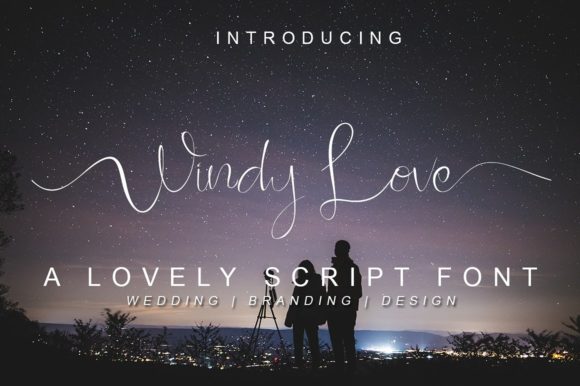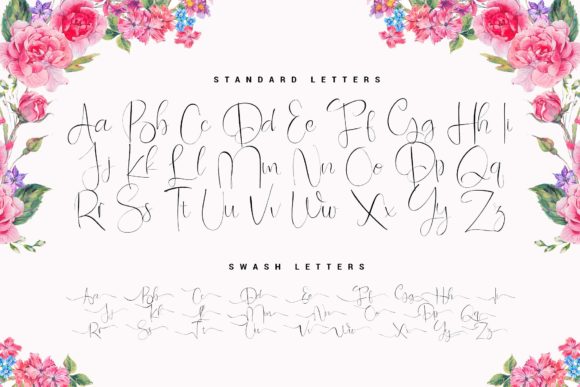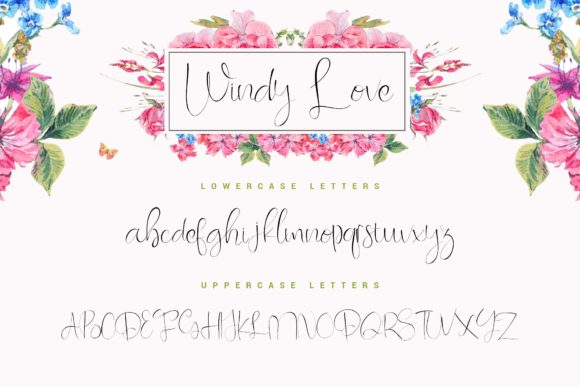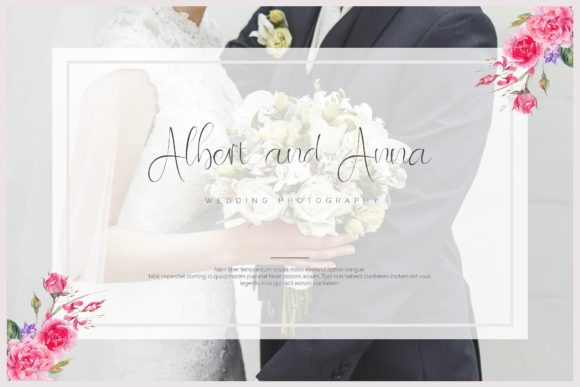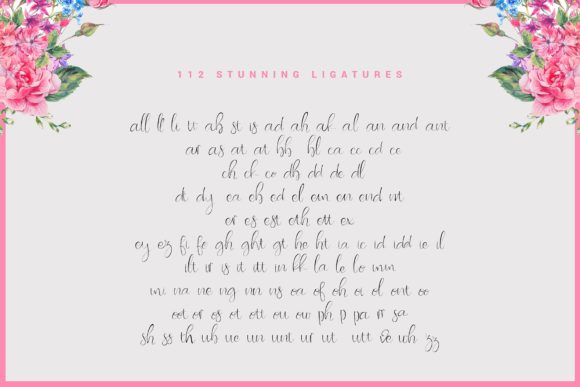
Windy Love Font
About Windy Love Font
The Windy Love is an elegant script font. It has a natural handwritten touch which is perfect for adding a personal touch to your designs. It includes lots of ligatures which can be used to create multiple unique designs in an instant.